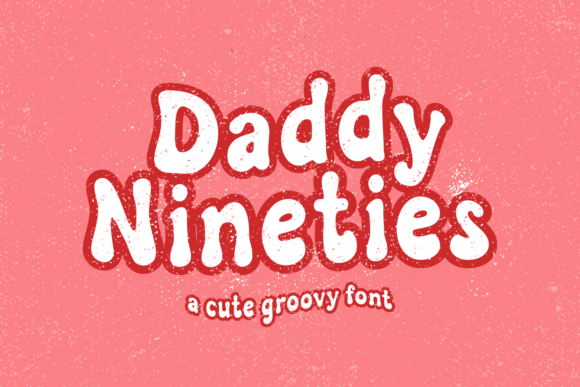
Daddy Nineties Font: The Ultimate Retro Display Font for Your Designs
Are you looking for a font that can add a fun, retro vibe to your designs? Look no further than the Daddy Nineties font! This cute and groovy display font is perfect for giving your projects a nostalgic 90s feel. With its playful and charming look, Daddy Nineties is sure to become your go-to font for all your design needs.
What is Daddy Nineties Font?
Daddy Nineties is a display font that is inspired by the iconic typography of the 1990s. The font features bold, rounded letters with a playful and carefree vibe. The design is reminiscent of the fun and quirky typography that was popular during the 90s, making it perfect for designers who want to add a touch of nostalgia to their work.
Key Features of Daddy Ninetes Font
- Cute and Groovy Design: The Daddy Nineties font has a unique and eye-catching design that is sure to grab attention. The bold, rounded letters are perfect for creating fun and playful designs.
- Retro Vibe: The font has a strong retro vibe that is perfect for designers who want to create designs that are inspired by the 1990s.
- Playful and Charming: The Daddy Nineties font has a playful and charming look that is sure to add a touch of personality to your designs.
- Perfect for Display Text: The font is designed specifically for display text, making it perfect for headlines, titles, and other prominent text elements.
Uses of Daddy Nineties Font
The Daddy Nineties font is perfect for a wide range of design projects, including:
- Graphic Design: The font is perfect for graphic design projects, such as brochures, posters, and flyers.
- Digital Design: The font can be used in digital designs, such as websites, social media graphics, and email newsletters.
- Crafting and Scrapbooking: The font is also perfect for crafters and scrapbookers who want to add a touch of nostalgia to their projects.
- Branding and Packaging: The font can be used in branding and packaging designs to create a fun and playful look.
Why Choose Daddy Nineties Font?
There are many reasons why you should choose the Daddy Nineties font for your design projects. Here are a few:
- Unique Design: The font has a unique and eye-catching design that is sure to grab attention.
- Easy to Read: The font is easy to read, even at small sizes, making it perfect for a wide range of design projects.
- Versatile: The font can be used in a wide range of design projects, from graphic design to digital design.
- Nostalgic Vibe: The font has a strong nostalgic vibe that is perfect for designers who want to create designs that are inspired by the 1990s.
Tips for Using Daddy Nineties Font
Here are a few tips for using the Daddy Nineties font in your design projects:
- Use it for Display Text: The font is designed specifically for display text, so use it for headlines, titles, and other prominent text elements.
- Pair it with a Simple Font: The font is bold and playful, so pair it with a simple font to create contrast.
- Experiment with Colors: The font looks great in bright, bold colors, so experiment with different colors to find the perfect look for your design.
In conclusion, the Daddy Nineties font is a fun and playful display font that is perfect for designers who want to add a touch of nostalgia to their work. With its cute and groovy design, retro vibe, and playful and charming look, this font is sure to become your go-to font for all your design needs.